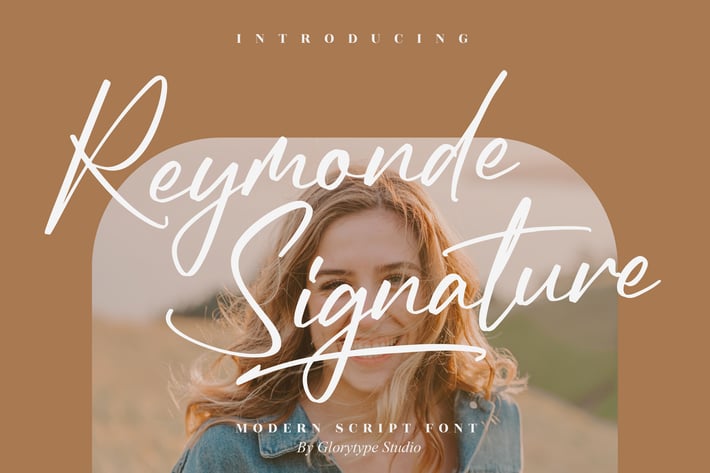
Reymonde Signature Modern Script Font
Reymonde Signature is a stylish modern script font with an effortless handwritten flow that exudes elegance and warmth. Its smooth curves and sophisticated form make it a perfect choice for creating timeless, professional, and creative visuals that stand out with personality and charm.
Modern signature-style script with authentic handwritten feel
Elegant stroke contrast for refined aesthetics
Well-balanced spacing for both print and digital designs
Suitable for a wide range of creative applications
Fashion and photography branding
Elegant logos and packaging
Invitations and greeting cards
Editorial layouts and magazines
* Social media designs and promotional visuals
Graceful, modern, and endlessly versatile — Reymonde Signature captures the art of handwriting with a touch of sophistication.